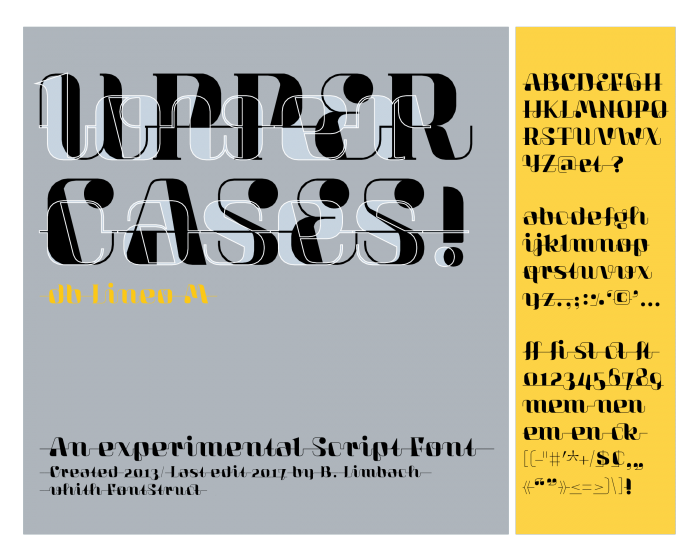
• New: Capital Letters
How did you get the curves so round?
An exciting and inspiring variation of "Script" ;) It looks so professional...
Beautiful curves and angles with an Art Deco feel
Great extension of db Lineo with capitals. Connected script rules again. 10/10
This is . . . awesome. :) Granted, I really don't remember this; plus, I would make J and Q different—personal design preferences, of course. I think the tail of 'g' might look a bit better if the angle were lined up with the angle of the bowl, i.e., if it appears to flow into it, like 5 does. I also love the 4.
@Brynda: because the font, like most of hers, are very large. Some of my older fonts are the same, such as Ptah, which is about 100 bricks tall. The curves are modular, and composed of numerous angles, which require making composite bricks.